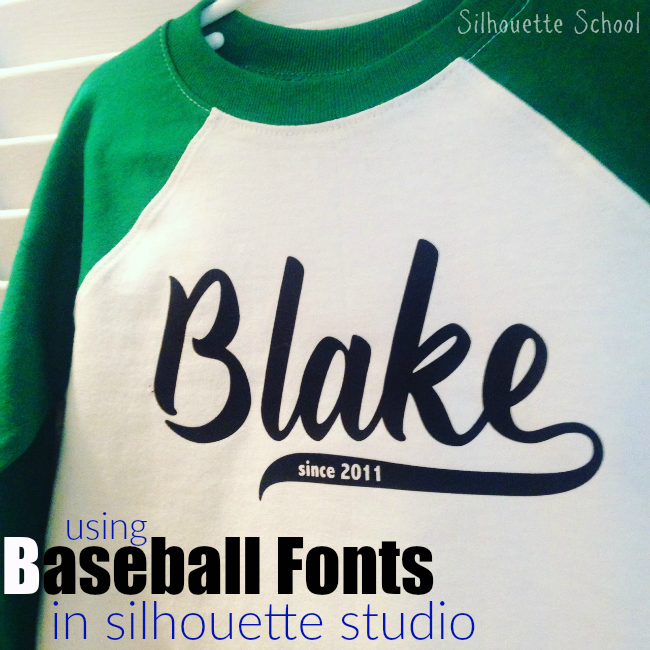
What Font Do Baseball Jerseys Use . Alternatively, you can add bold sans serifs made precisely for baseball team branding and jerseys: what are baseball fonts usually used for? A modern font inspired by nike’s designs, it works well on jerseys with its unique shape and sharp edges. Let’s read on to find out which sports fonts made the list. If you head into our design lab, you’ll find a ton of great fonts for your uniforms. Write your team name in your favorite font, or combine it with some of our awesome. Use font variations to distinguish between team names, player names, and numbers, or to highlight important details. For example, marsmello, broffont, or boston baseball script. for a logo designer, choosing the right baseball font that enhances the logo’s essence is very important. the best baseball fonts to feature on jerseys are sturdy script types with swash capitals, smooth connections, and a vintage look. whether you’re on the basketball team or the baseball team or play for your school or a rec league, there’s plenty of fonts to choose from to achieve the perfect look.
Alternatively, you can add bold sans serifs made precisely for baseball team branding and jerseys: for a logo designer, choosing the right baseball font that enhances the logo’s essence is very important. If you head into our design lab, you’ll find a ton of great fonts for your uniforms. the best baseball fonts to feature on jerseys are sturdy script types with swash capitals, smooth connections, and a vintage look. what are baseball fonts usually used for? whether you’re on the basketball team or the baseball team or play for your school or a rec league, there’s plenty of fonts to choose from to achieve the perfect look. Use font variations to distinguish between team names, player names, and numbers, or to highlight important details. Let’s read on to find out which sports fonts made the list. A modern font inspired by nike’s designs, it works well on jerseys with its unique shape and sharp edges. Write your team name in your favorite font, or combine it with some of our awesome.
What Font Do Baseball Jerseys Use A modern font inspired by nike’s designs, it works well on jerseys with its unique shape and sharp edges. Alternatively, you can add bold sans serifs made precisely for baseball team branding and jerseys: If you head into our design lab, you’ll find a ton of great fonts for your uniforms. the best baseball fonts to feature on jerseys are sturdy script types with swash capitals, smooth connections, and a vintage look. For example, marsmello, broffont, or boston baseball script. Let’s read on to find out which sports fonts made the list. A modern font inspired by nike’s designs, it works well on jerseys with its unique shape and sharp edges. for a logo designer, choosing the right baseball font that enhances the logo’s essence is very important. Write your team name in your favorite font, or combine it with some of our awesome. Use font variations to distinguish between team names, player names, and numbers, or to highlight important details. whether you’re on the basketball team or the baseball team or play for your school or a rec league, there’s plenty of fonts to choose from to achieve the perfect look. what are baseball fonts usually used for?
Baseball Jersey Font What Font Do Baseball Jerseys Use If you head into our design lab, you’ll find a ton of great fonts for your uniforms. A modern font inspired by nike’s designs, it works well on jerseys with its unique shape and sharp edges. what are baseball fonts usually used for? whether you’re on the basketball team or the baseball team or play for your school. What Font Do Baseball Jerseys Use.
22 Best Baseball Fonts What Font Do Baseball Jerseys Use Let’s read on to find out which sports fonts made the list. the best baseball fonts to feature on jerseys are sturdy script types with swash capitals, smooth connections, and a vintage look. for a logo designer, choosing the right baseball font that enhances the logo’s essence is very important. If you head into our design lab, you’ll. What Font Do Baseball Jerseys Use.
Top 15 AweInspiring Baseball Fonts for the Aspiring Logo Designer What Font Do Baseball Jerseys Use whether you’re on the basketball team or the baseball team or play for your school or a rec league, there’s plenty of fonts to choose from to achieve the perfect look. Let’s read on to find out which sports fonts made the list. what are baseball fonts usually used for? the best baseball fonts to feature on. What Font Do Baseball Jerseys Use.
Baseball Jersey Font What Font Do Baseball Jerseys Use If you head into our design lab, you’ll find a ton of great fonts for your uniforms. Let’s read on to find out which sports fonts made the list. Use font variations to distinguish between team names, player names, and numbers, or to highlight important details. Write your team name in your favorite font, or combine it with some of. What Font Do Baseball Jerseys Use.
Baseball Jersey Font What Font Do Baseball Jerseys Use For example, marsmello, broffont, or boston baseball script. what are baseball fonts usually used for? Use font variations to distinguish between team names, player names, and numbers, or to highlight important details. for a logo designer, choosing the right baseball font that enhances the logo’s essence is very important. whether you’re on the basketball team or the. What Font Do Baseball Jerseys Use.
25+ Baseball Fonts (For a Jersey, Shirt, Logo + More) 2021 Theme Junkie What Font Do Baseball Jerseys Use whether you’re on the basketball team or the baseball team or play for your school or a rec league, there’s plenty of fonts to choose from to achieve the perfect look. Write your team name in your favorite font, or combine it with some of our awesome. Alternatively, you can add bold sans serifs made precisely for baseball team. What Font Do Baseball Jerseys Use.
Baseball Ordering & Printing Protime Sports Inc. What Font Do Baseball Jerseys Use for a logo designer, choosing the right baseball font that enhances the logo’s essence is very important. Let’s read on to find out which sports fonts made the list. whether you’re on the basketball team or the baseball team or play for your school or a rec league, there’s plenty of fonts to choose from to achieve the. What Font Do Baseball Jerseys Use.
Baseball Jersey Font What Font Do Baseball Jerseys Use what are baseball fonts usually used for? Alternatively, you can add bold sans serifs made precisely for baseball team branding and jerseys: If you head into our design lab, you’ll find a ton of great fonts for your uniforms. For example, marsmello, broffont, or boston baseball script. Let’s read on to find out which sports fonts made the list.. What Font Do Baseball Jerseys Use.
Original Athletic Varsity Sport Alphabet. Vintage Old School Baseball What Font Do Baseball Jerseys Use Alternatively, you can add bold sans serifs made precisely for baseball team branding and jerseys: for a logo designer, choosing the right baseball font that enhances the logo’s essence is very important. If you head into our design lab, you’ll find a ton of great fonts for your uniforms. For example, marsmello, broffont, or boston baseball script. what. What Font Do Baseball Jerseys Use.